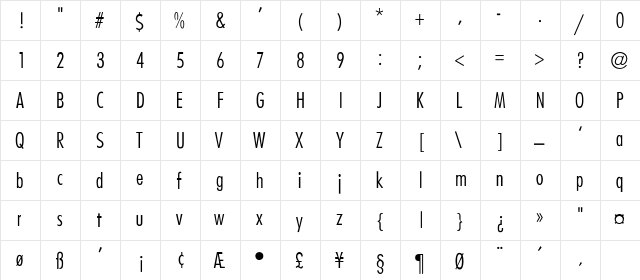
Futura-CondensedLight-Thin Regular Font Preview
Design Context for Futura-CondensedLight-Thin Typeface
Futura-CondensedLight-Thin channels digital-age aesthetics through its sharp, structured letterforms — ideal for brands that want to signal innovation. The delicate stroke weight brings airiness and refinement to layouts. Its narrow stance lets it pack a punch even in space-constrained designs.
Pro Tip: Try Futura-CondensedLight-Thin with generous letter-spacing in UI labels and navigation — the geometric forms benefit from room to breathe.